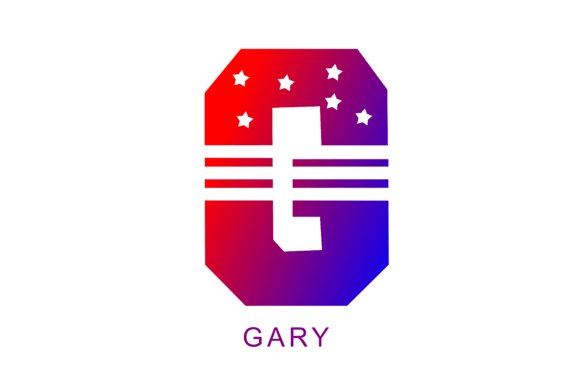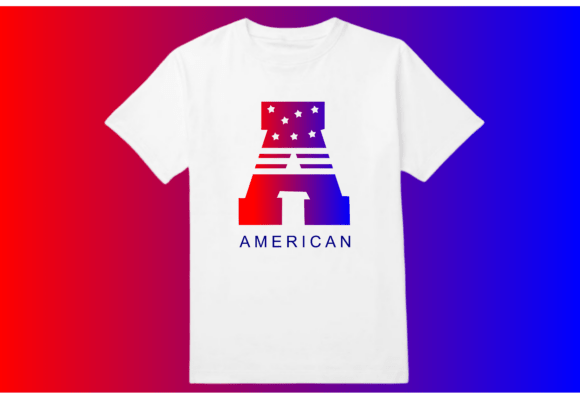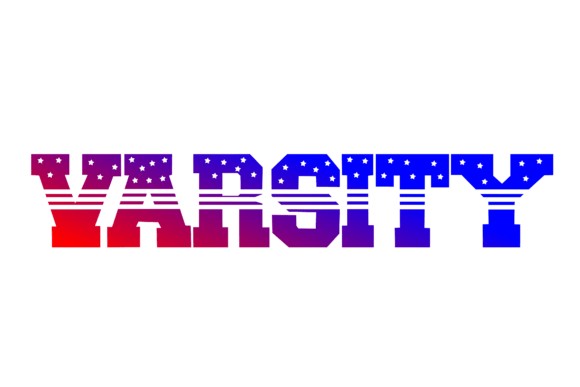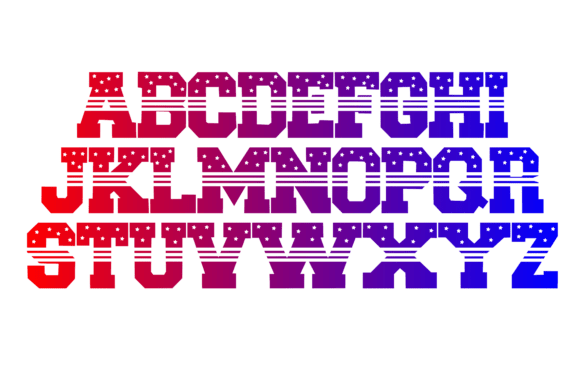
Introduction to Player Font
Have you ever found yourself lost in the creative process, pouring your heart and soul into a project, only to struggle with the perfect font to bring it to life? This is where the magic of Player Font comes in – a captivating typeface that has been a game-changer for designers worldwide.
Whether you’re working on a high-end design project or a simple creative endeavor, Player Font is the perfect design resource to elevate your work to the next level. With its mesmerizing Kitty Monogram and seamless blend of sophistication and charm, this font is sure to captivate your audience and leave a lasting impression.
Unlocking the Power of Player Font
Key Features of Player Font
- High-quality font with a unique and modern design, suitable for a variety of applications, including gaming, sports, and entertainment.
- Features a transparent background, allowing for seamless integration with different backgrounds and designs.
- Available in a range of sizes, from 16px to 128px, making it suitable for use in various contexts, from small icons to large headlines.
- Resolution-independent, ensuring that the font remains crisp and clear at any resolution, from low-resolution displays to high-resolution graphics.
- Designed with a focus on legibility and readability, making it an excellent choice for use in digital applications, such as video games, sports websites, and entertainment platforms.
Honest Review: Player Font
I recently had the chance to work with Player Font, a free download available to designers. The quality is high, making it a valuable addition to any design resource. The font is available in various weights and styles, offering a wide range of creative possibilities.
Here’s what works well: ✨ The font’s design is clean and modern, making it suitable for a variety of creative projects. The transparent background option is also a nice touch, allowing designers to easily place the font over any background image.
- Various weights and styles available
However, there are some limitations: ⚠️ The font doesn’t include a comprehensive character set, which may limit its use for complex creative projects. Additionally, the font may not be as versatile as some other design resources.
Overall, I’m impressed with Player Font. While it may have some limitations, its high-quality design and creative possibilities make it a valuable addition to any designer’s toolkit.
Tips for Getting the Most Out of Player Font
For a high-quality design, use Player Font with a transparent background to create a clean and modern look. This font is perfect for creative projects, such as graphics, posters, and social media graphics.